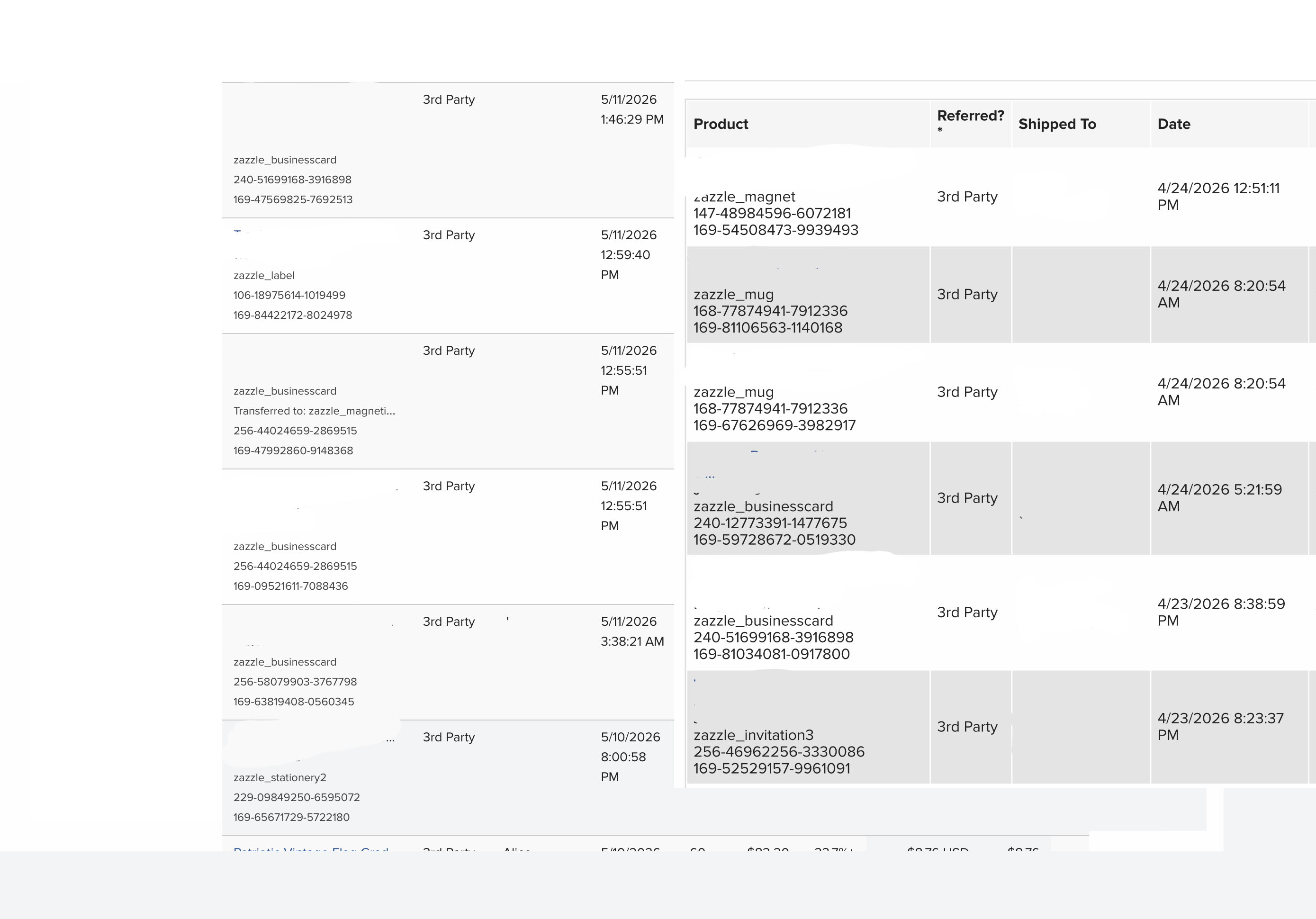
All of my zazzle pages are lighter a d have a light font now .. is this on zazzles end or safari? Very hard to read
I agree. I noticed this last night. The colors are so light I can hardly see the difference between the gray pending color and the green cleared color on my sales history pages. And the font is too light for me, as well. It is hard to read and I can’t quickly glance at it to get my numbers.
ETA: This is on a desktop using Chrome so it’s not just Safari.
Are you talking about the earnings pages? Because those definitely updated last night around 9pm Pacific. It does seem a lot lighter, and it’s also way too padded (white space) in my opinion. I used to be able to see 25 lines on my screen and now I can see 14. Much like the new design tool, more scrolling and steps to do the same thing. ![]()
I’m not seeing the light colors - they look fine on my screen, but I absolutely agree that there’s too much white space.
My earnings and royalty reports pages are also way too light and bright looking, and the green and gray colors are hardly noticeable, especially the gray areas. Happening on both my Samsung tablet and Samsung smartphone. It’s now harder on the eyes. Was much better before this latest change.
the font isnt as heavy a font .. its very light, and smaller .. even in this forum fonts are different on my end .. anyone else ? I didnt know if it might be a safari/ipad issue .. looked fine yesterday
Colors look “washed out”, lacking intensity.
Does it make any difference if we say that we didn’t like the colors and the new fonts?
I noticed the same thing, everything is lighter and bigger.
I am not real computer savvy, so did not know whether my computer had updated and changed things or if I had accidentally done something OR if Zazzle had been “fooling around” with things AGAIN. I am on a Computer desktop, Apple using chrome. The Royalty Page used to be so easy to read. Several items fit on a “page” and was a perfect size and best of all, it was immediately apparent which items had cleared (green) which were still pending (the gray). Now, there appears to be NO difference between the cleared and the pending–everything is black print on white background and no way to tell what is pending and is not. Why did this need to be changed? Does somebody have too much time on their hands?
Regarding colors on the Royalty pages.
I use a laptop with an external (large) screen while at home. On this (just checked) the colors are a little lighter than before. Yesterday I took the laptop off-site and used the built in screen. The colors where very faint. Possibly adjusting the screen intensity/whatever might adjust this new adjustment?? Not enough for me to worry about.
its not even the colors that bother me as much as the teeny tiny print .. heres the difference of how its looking on my ipad .. its aweful .. cant hardly read the text ..